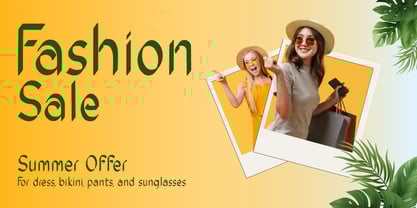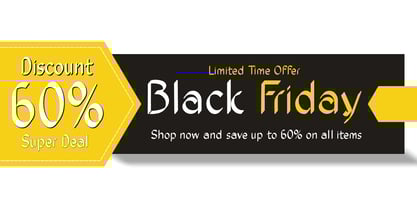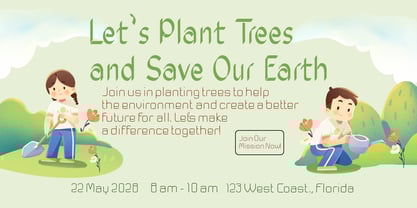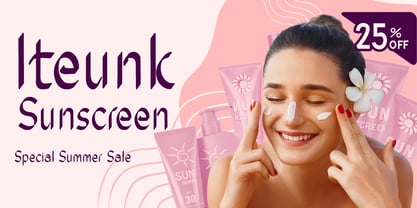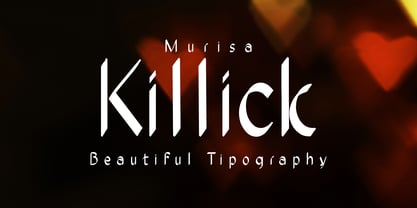
Murisa Killick
by Murisa Studio
The Murisa Killick Font Family was designed by Lili Sadili and published by Murisa Studio. Murisa Killick contains 2 styles and family package options.
Designers: Lili Sadili
Publisher: Murisa Studio
Foundry: Murisa Studio
Design Owner: Murisa Studio